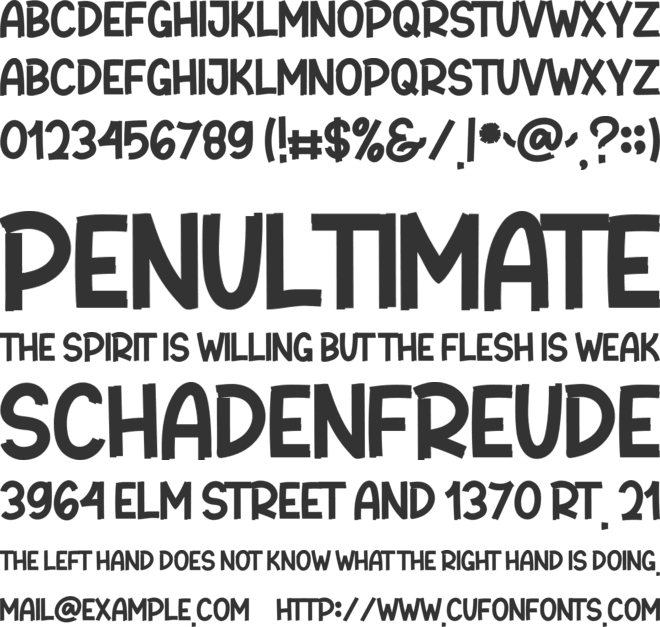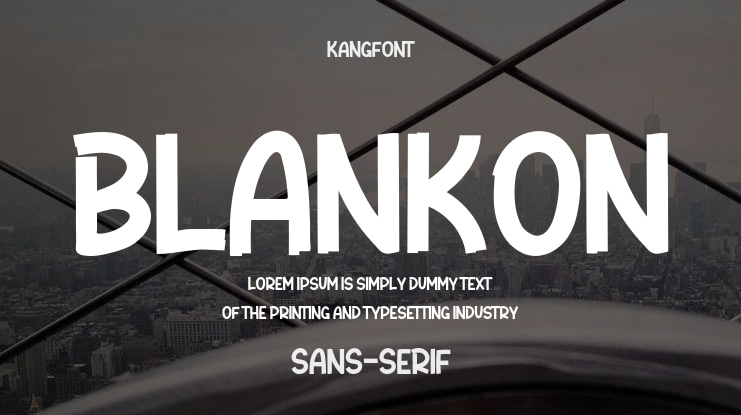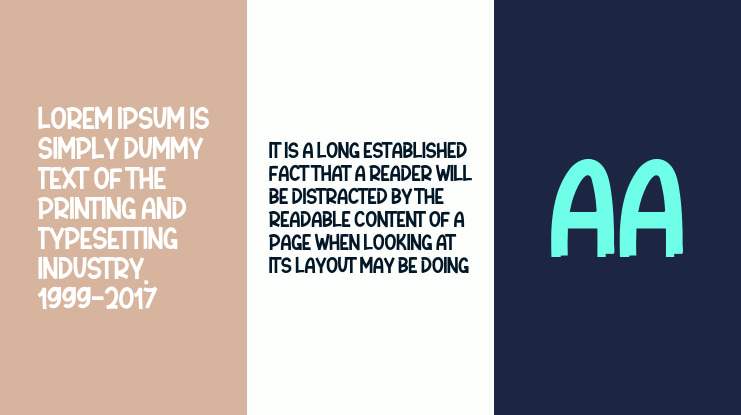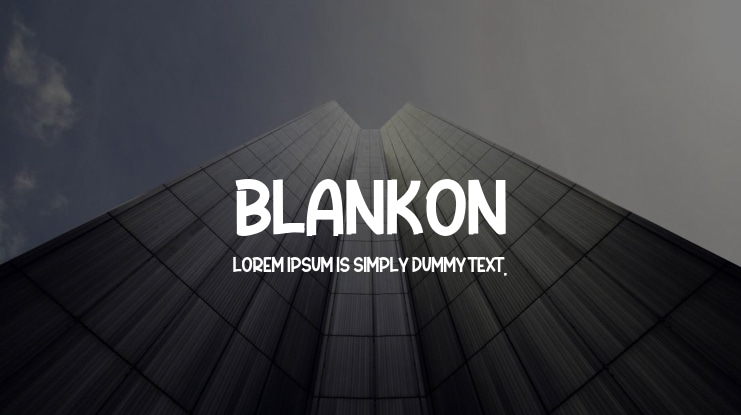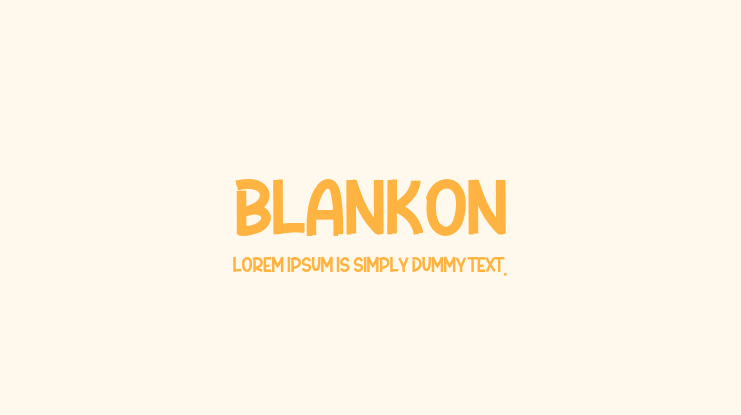
Blankon Font
**Blankon – Display Font**
Discover Blankon, a bold and striking Japanese display font crafted to introduce a unique flair to your projects! Featuring robust, hand-drawn characters inspired by Japanese culture, this font instills a fun and playful atmosphere into posters, packaging, branding, and more.